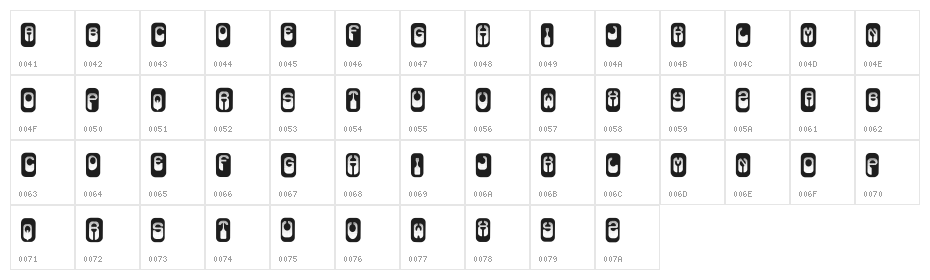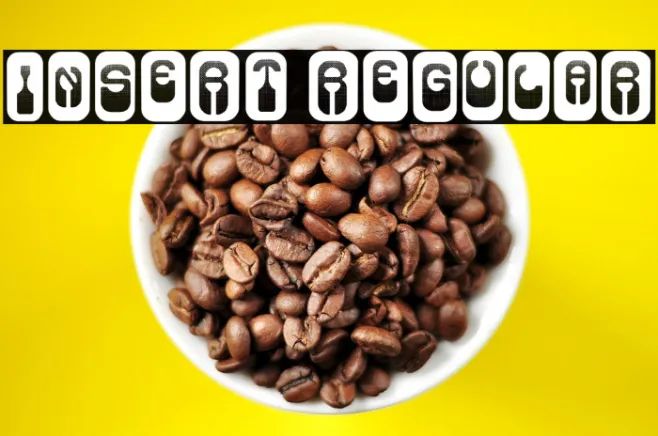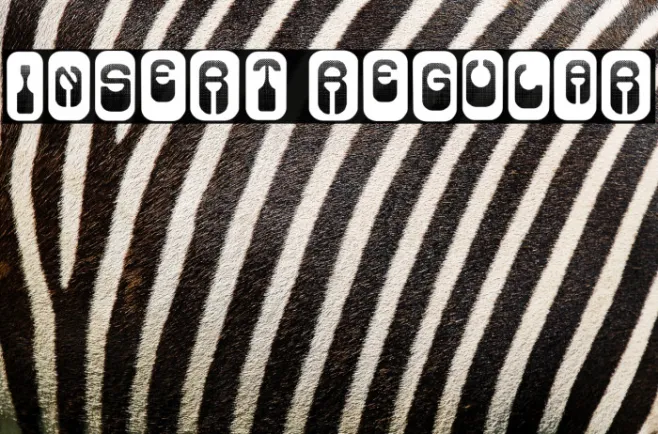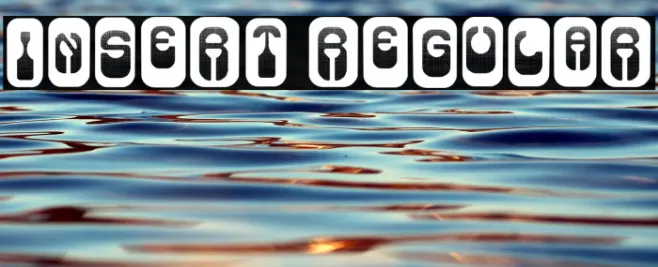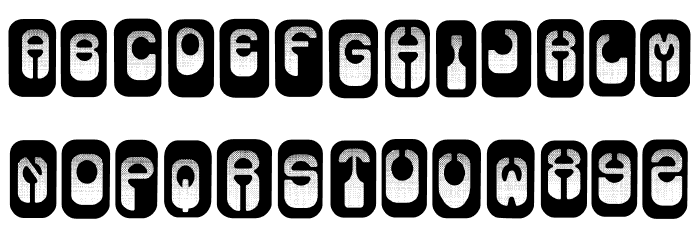
Insert Regular Font
Insert Regular Description
This font features a unique and bold design with each character enclosed within a rounded rectangle. The letters are stylized with a stencil-like appearance, where parts of the characters are cut out, creating a striking visual effect. The use of negative space within the characters adds to the distinctiveness of the font. The overall look is modern and somewhat industrial, making it stand out in any design. The characters are uniformly spaced within their individual frames, providing a consistent and cohesive look across the entire set. This font is particularly eye-catching and would be suitable for projects that require a strong visual impact.
| Overall Style | Modern, Industrial |
| Proposed Projects | Ideal for branding, poster design, album covers, and any project needing a bold, modern aesthetic. |